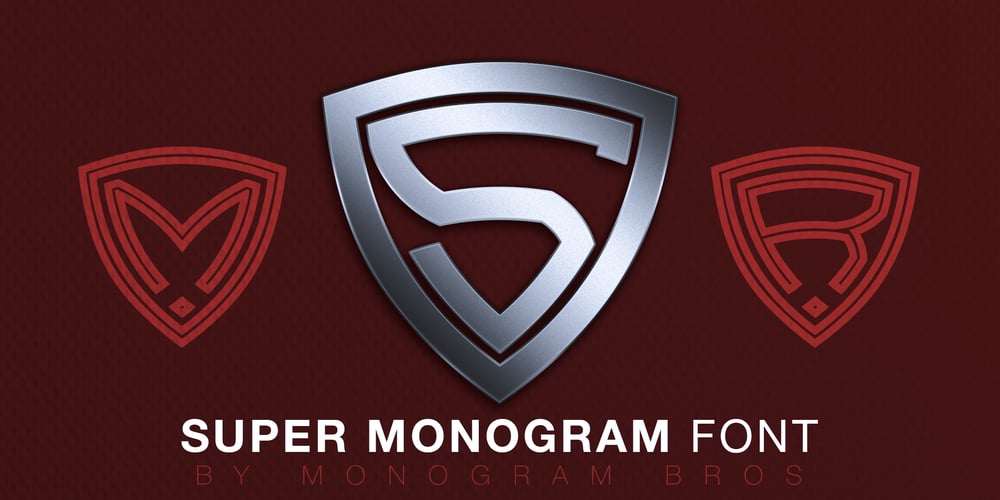
Super Monogram Font Family was designed by Andrei Isakau and published by MonogramBros. Super Monogram contains 2 styles and family package options. Super Monogram is a perfect shaped monogram font consisting of 26 letters. With just a single font file you will be able to create beautiful monograms in just a matter of minutes after the purchase! Numbers and special characters not included.